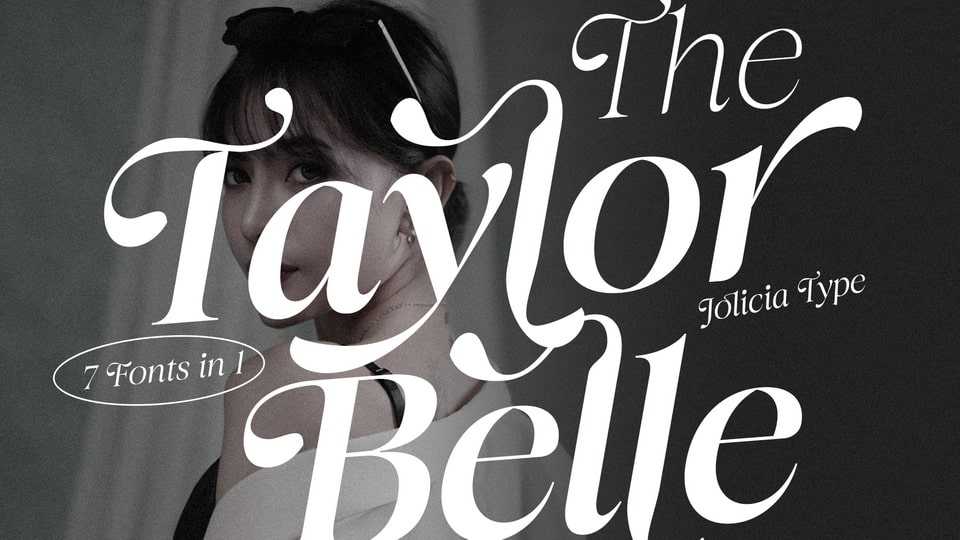
Download Taylor Belle font, a captivating serif display typeface that radiates femininity and timeless elegance, designed with graceful curves and refined details.